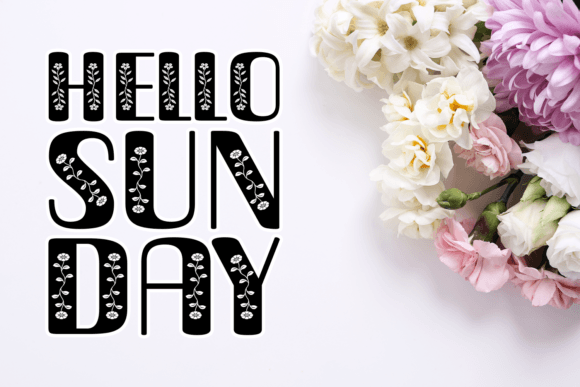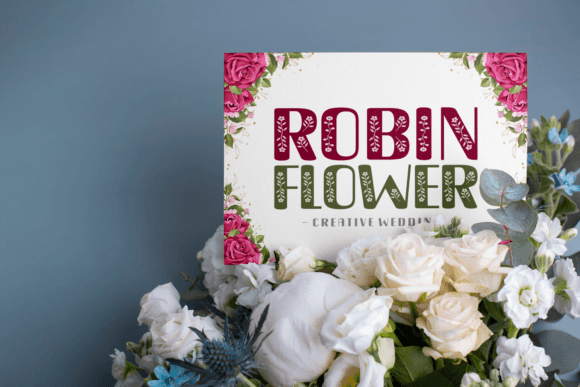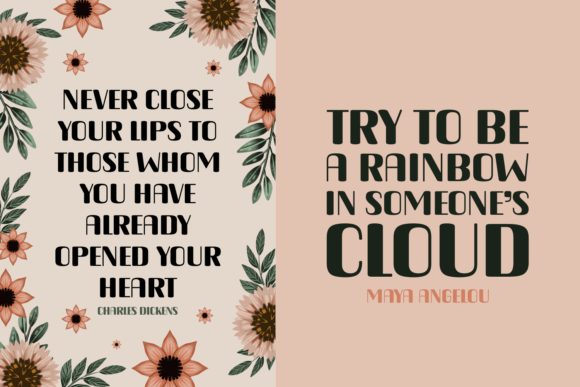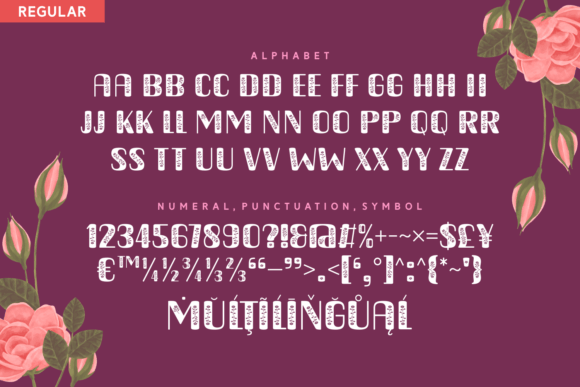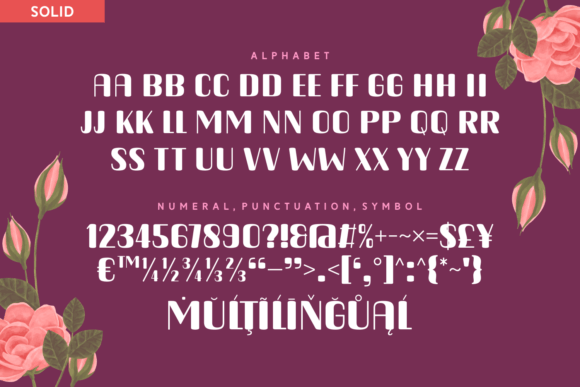
Introduction to Merin Font Font
Fonts play a crucial role in design, and the Merin Font font is a typeface that brings both character and versatility to any project. Whether you’re working on a branding project, a website, or a print design, the Merin Font font offers a unique style that can elevate your work.
Merin is an elegant font that comes in two different forms solid and regular making it perfect for all your decorative needs.
Each character is filled with beautiful flowers and intricate details, creating a stunning effect Perfect for cards, invitations, and other special occasions.
Key Features of Merin Font Font
Why Choose Merin Font Font?
The Merin Font font is more than just a typeface – it’s a design tool that helps you communicate your message with style and clarity. Its unique character set and versatile design make it suitable for a wide range of applications, from elegant invitations to bold headlines.
With its carefully crafted letterforms and balanced proportions, the Merin Font font ensures readability and visual appeal across all mediums.
What makes Merin Font font special?
The Merin Font font stands out with its unique design, exceptional readability, and versatility across various design applications.